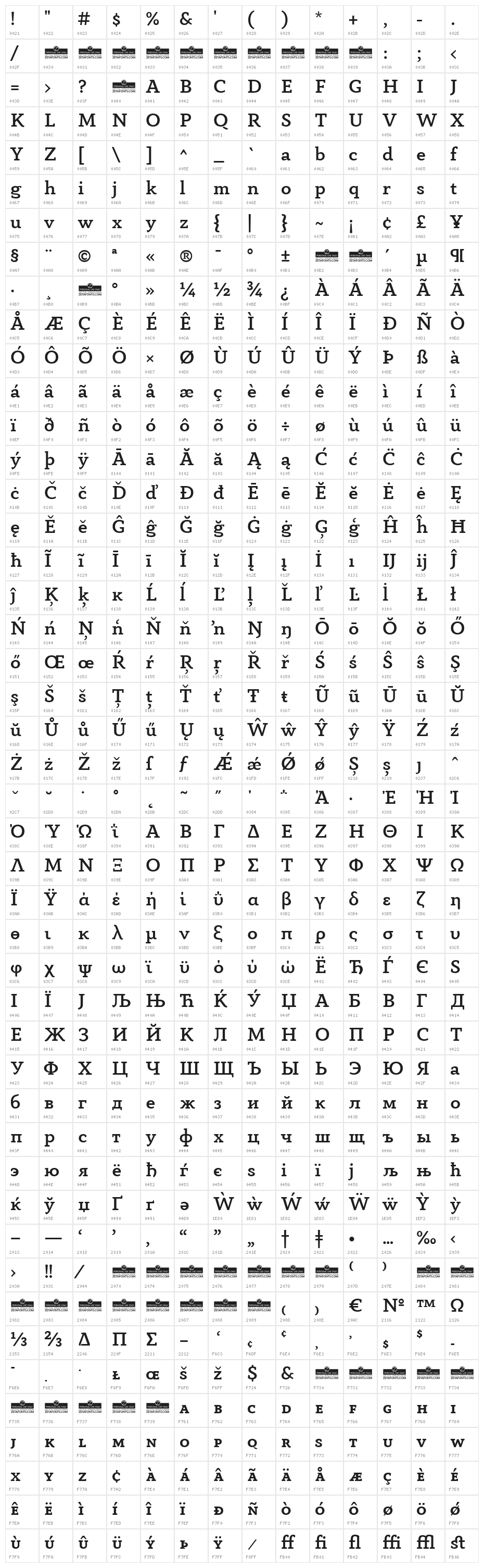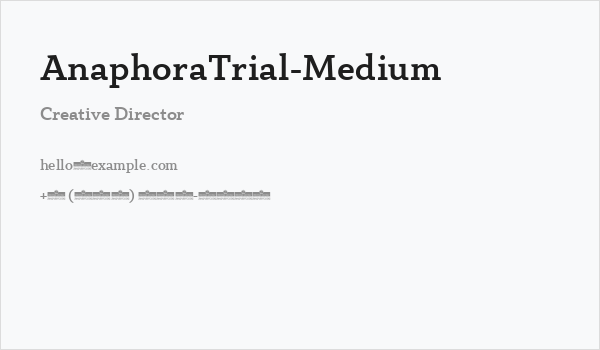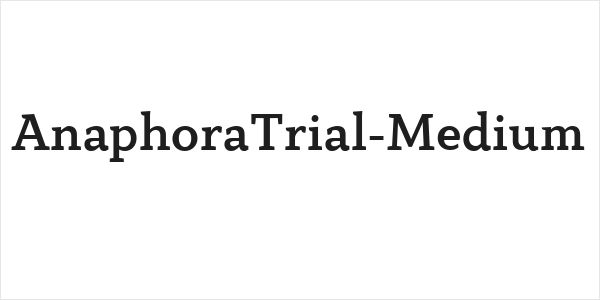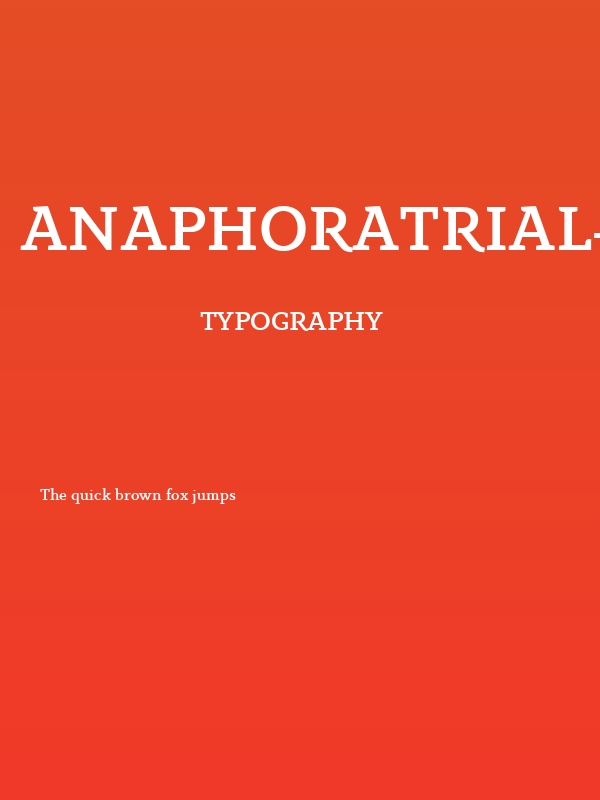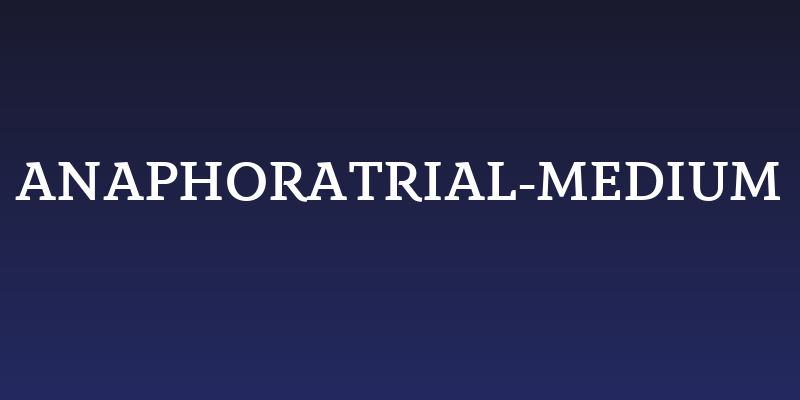
AnaphoraTrial-Medium Font
AnaphoraTrial-Medium Description
This font features a classic serif style with a modern twist, characterized by its medium weight and balanced proportions. The uppercase letters are bold and commanding, while the lowercase letters maintain a consistent flow with gentle curves. The numerals are clear and easily distinguishable, making them suitable for both text and display purposes. Special characters are well-defined, adding versatility to the font's application. The overall design is clean and professional, making it ideal for a variety of uses.
| Proposed Projects | Ideal for editorial design, book covers, branding, and corporate communications. |